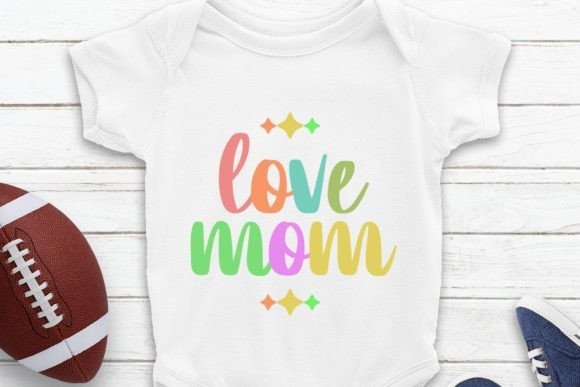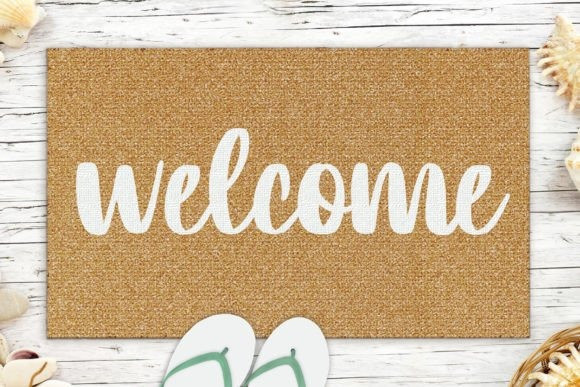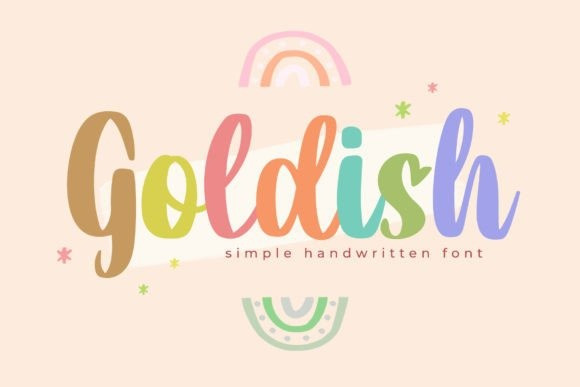
Goldish Font
Goldish Font is a cute, playful, and fun script font. Whether you’re using it for crafts, digital design, presentations, or making greeting cards, this font has the potential to become your favorite go-to font, no matter the occasion!